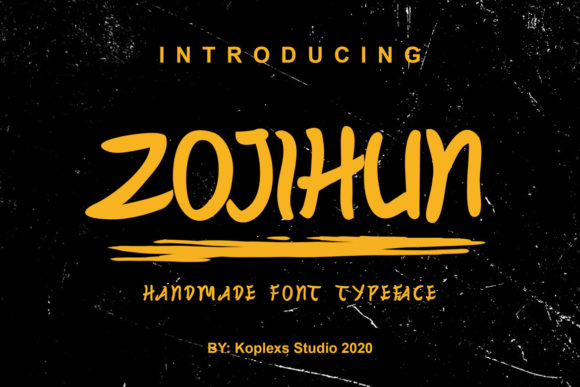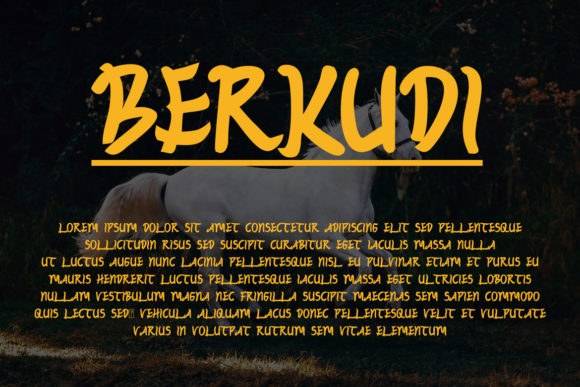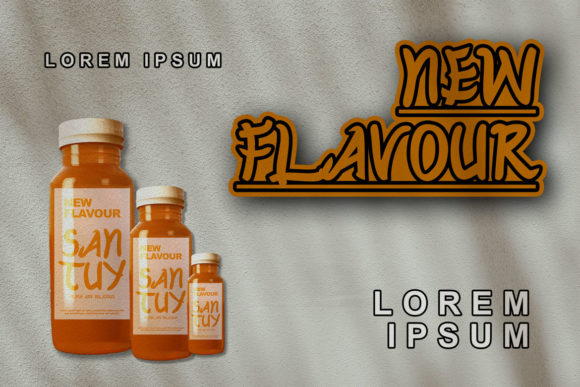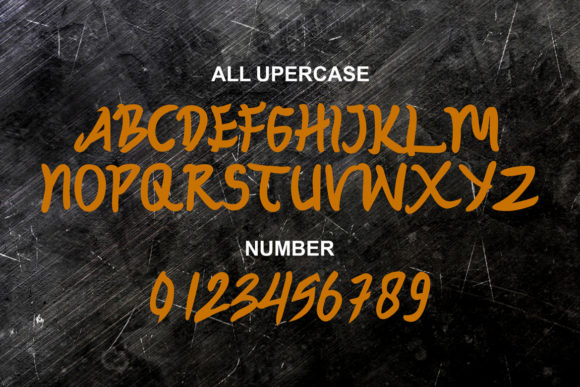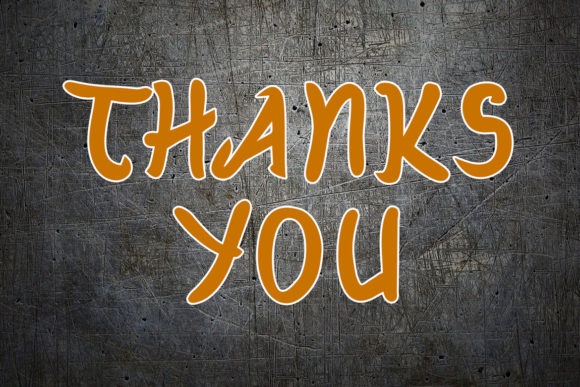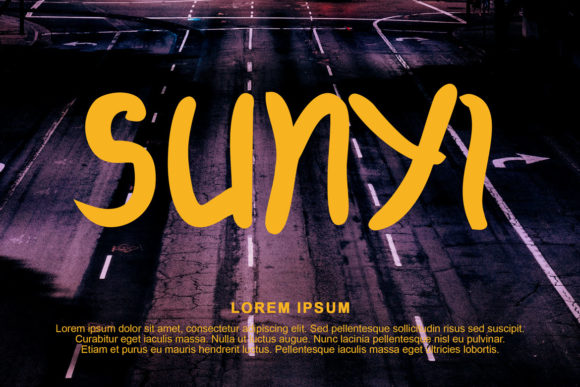
HomePersonal Use FreeZojihun Personal Use Free Zojihun FacebookTwitterPinterestWhatsApp 1 of 6 About Zojihun Font Zojihun is a chunky lettered and incredibly unique display font. Add this font to your creative ideas and notice how it will make them stand out! DOWNLOAD NOW People also explored Biscuit Quentin Sweet Flower Font Authorized Font Magical Christmas Font Awemen Font Rebel Frisco Graffiti Urban Y2k Font Monthana Font Starliner BTN 119 0 TagsZojihunZojihun Font Previous articleJurnalNext articleMadison Script LEAVE A REPLY Cancel reply Comment: Please enter your comment! Name:* Please enter your name here Email:* You have entered an incorrect email address! Please enter your email address here Website: Save my name, email, and website in this browser for the next time I comment. Personal Use Free Boldace Personal Use Free Read more about this font Ciggs Personal Use Free Read more about this font Cline Personal Use Free Read more about this font Zero Hour Personal Use Free Read more about this font BLOG Best Fonts for T-Shirt Design – Top 2025 Picks In 2025, t-shirt design has become more than just fashion—it's a form of self-expression. Whether you're... Free vs Paid Fonts: Why Investing in Premium Fonts Is Worth It The 10 Best Handwriting Fonts to Add Personality to Your Designs Using Fonts in Digital Marketing: Tips to Strengthen Your Brand Identity